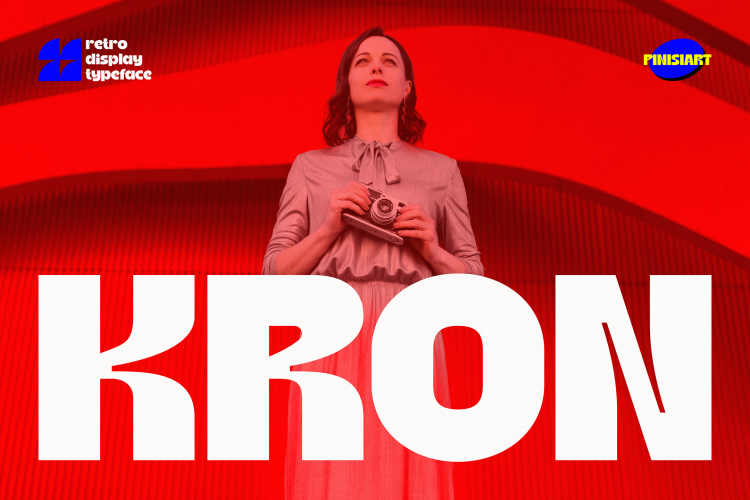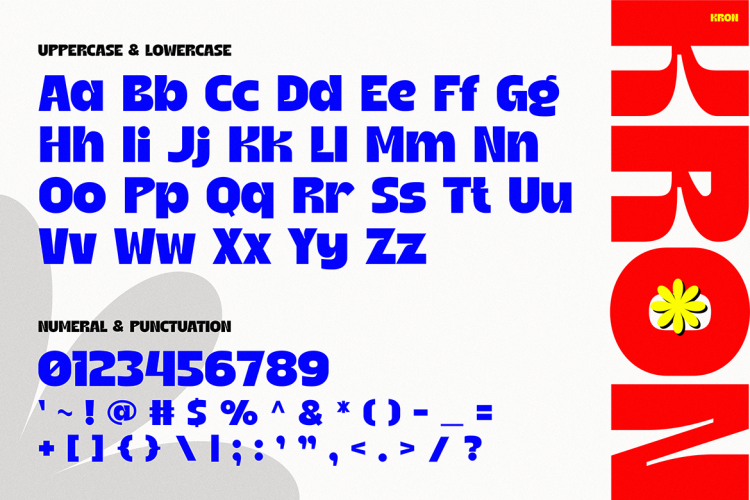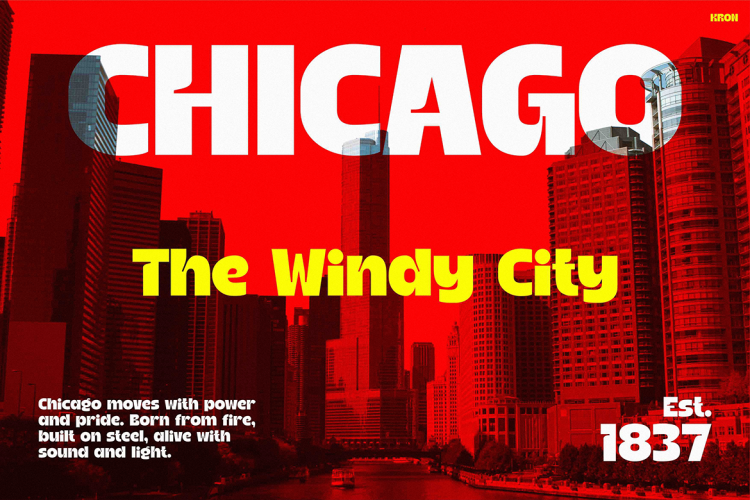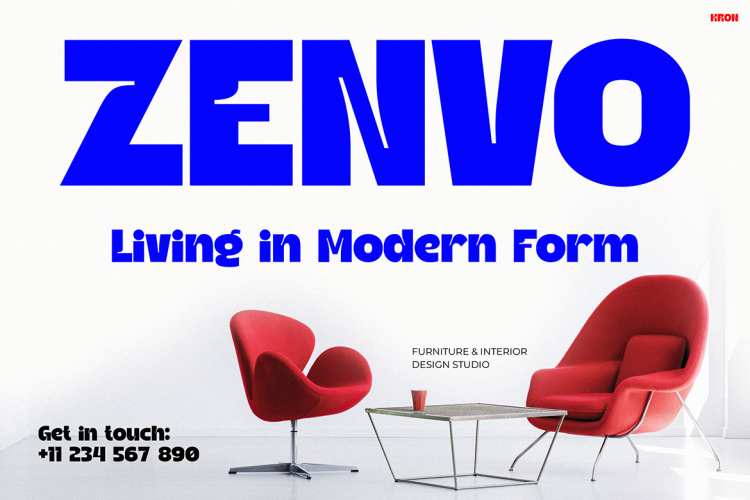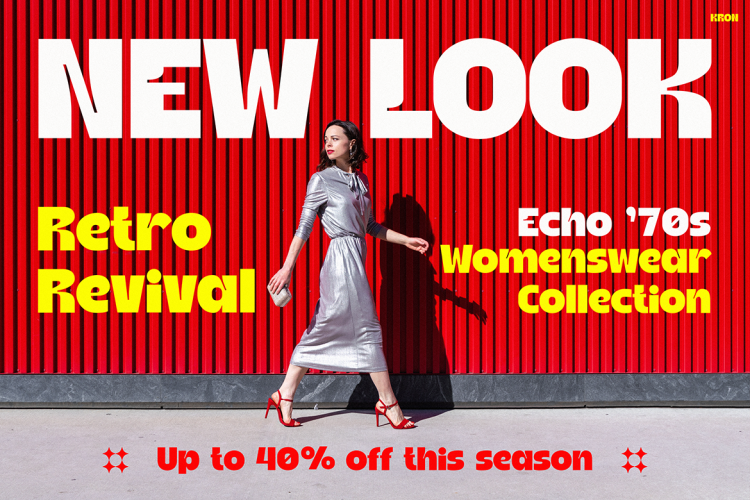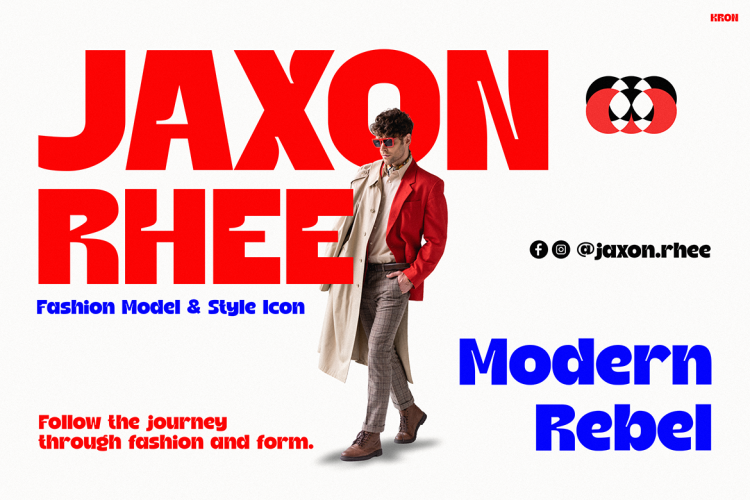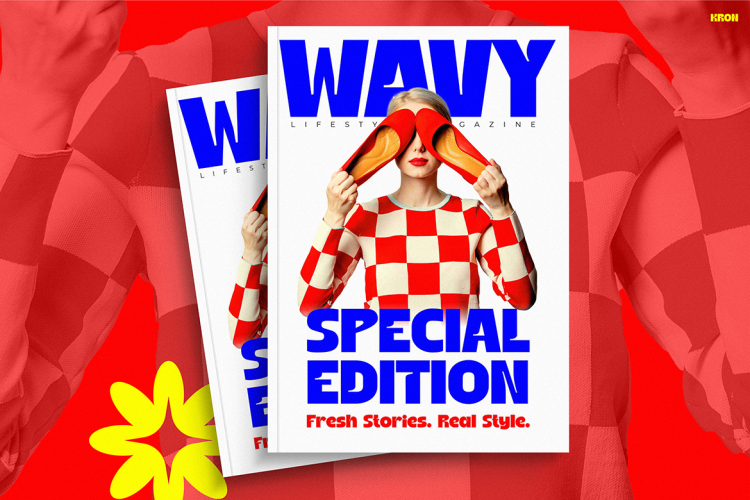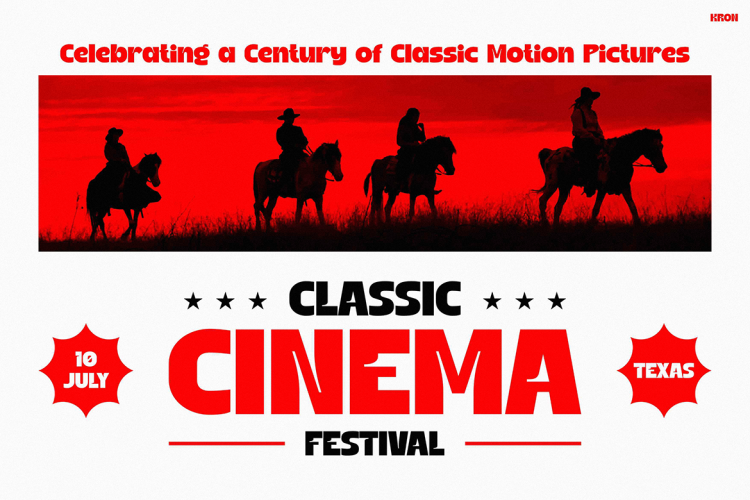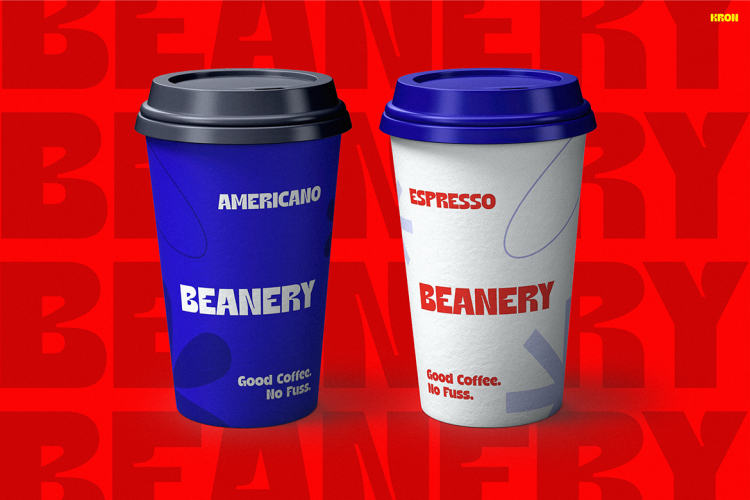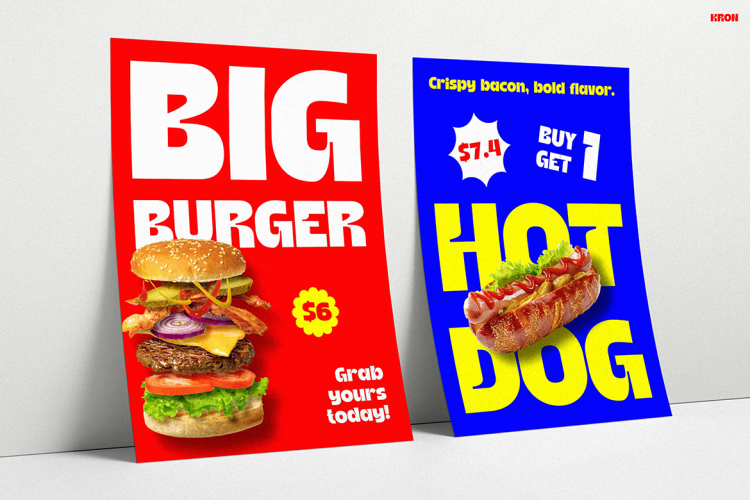
Retro Font KRON โ Bold, Timeless, and Full of Character
Retro Font KRON brings back the golden charm of the 70s and 80s with a bold modern twist. Its strong geometric curves, wide letterforms, and clean lines create a confident visual rhythm that instantly grabs attention. Every stroke feels both vintage and futuristic โ blending nostalgic warmth with modern minimalism. Whether displayed on posters, headlines, or packaging, KRON commands the spotlight with style and strength.
This font stands out through its balanced proportions and retro-inspired flair, making it perfect for designs that need a bold personality. It shines in both digital and print layouts, offering powerful visual impact without losing readability. From magazine covers to product branding, KRON adds a professional yet creative touch that elevates every composition.
Perfect For Designers with Bold Ideas
Retro Font KRON is a dream tool for designers, creators, and brands who love to play with vintage aesthetics while keeping things fresh. Itโs ideal for advertising, editorial design, fashion branding, coffee packaging, retro posters, signage, and social media campaigns. The strong uppercase forms bring authority and energy to every layout, while the softer curves add balance and charm.
Whether you’re crafting a classic cinema poster, building a trendy cafรฉ identity, or highlighting your new clothing collection, KRON delivers that distinctive retro-modern blend thatโs impossible to ignore. For content creators and marketing professionals, this font helps your message look more stylish, more dynamic, and more memorable.
Make Your Design Speak Loudly